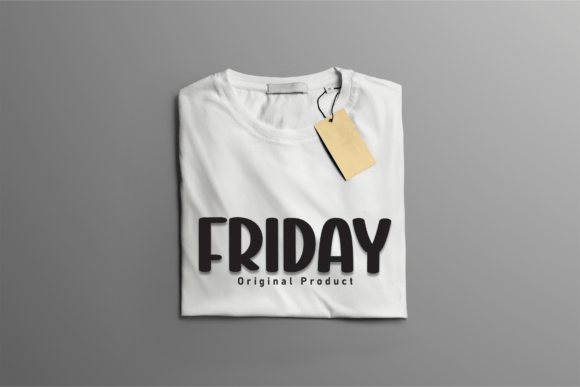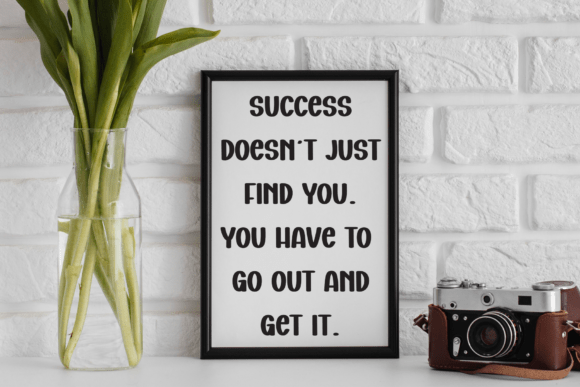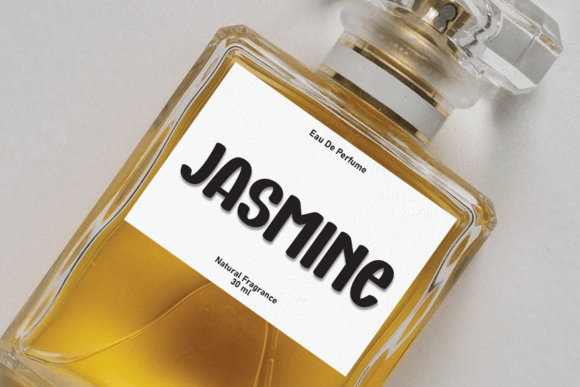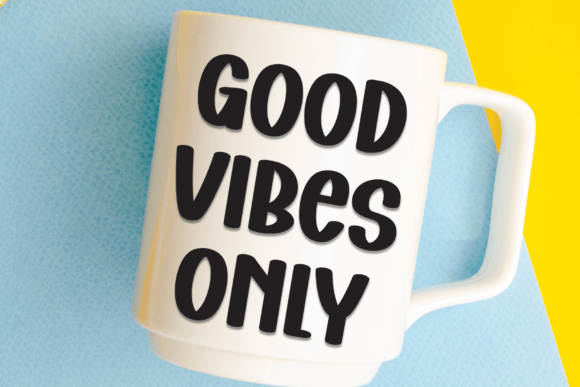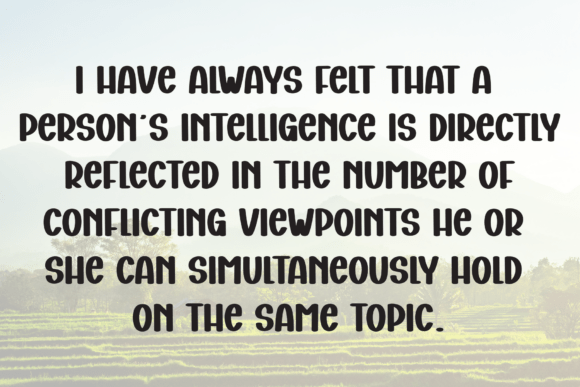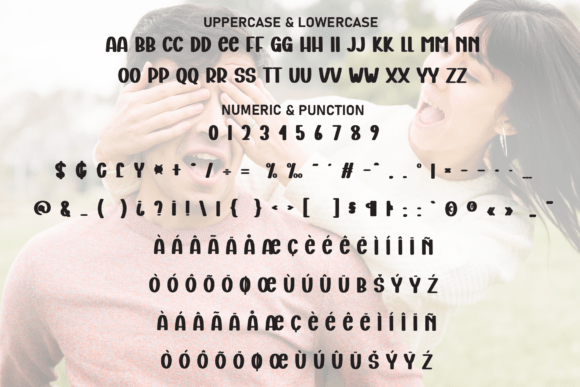
Introduction to Cherish Moment Font
Presenting a delightful handwritten display font that embodies sweetness and friendliness in each letter form.
Perfect for adding a jovial touch to your design, this enchanting font works wonders in personalizing wedding invitations, greeting cards and more, turning each text into a heartwarming expression of joy and sentimentality Experience the fusion of cuteness and fun, and elevate your design aesthetics to admirable new heights.